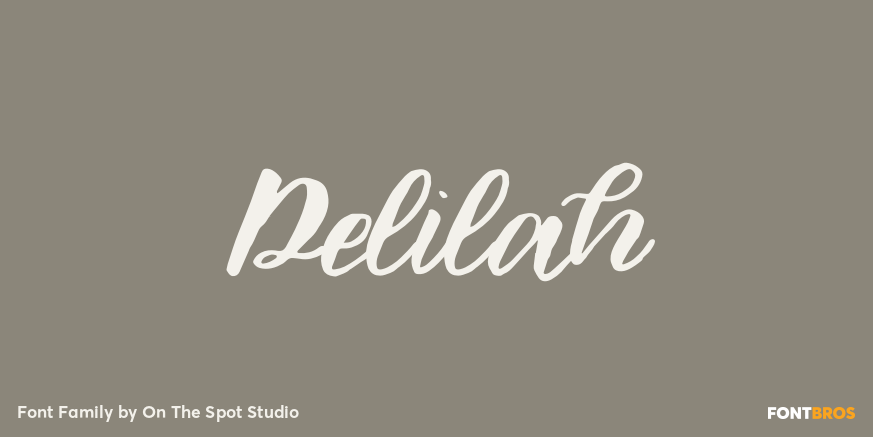
HomeFont BrosScripts: CasualDelilah Scripts: Casual Delilah FacebookXPinterestWhatsApp 1 of 1 About Delilah is a hand lettered brush font with bonus alternates. Great for branding, journaling, scrapbooking, etc.  DOWNLOAD ON FONT BROSThis font is sold and delivered by Font Bros. Font Canyon may earn a commission if you buy through this link. People also explored Malova Font Arskate Font De Alubarma Font Mudblood Font Diary Mithagitta Font Malshin Bilgisthi Electric Kiss Font Birdland Font Skull Grim Font 267 0 TagsDelilahDelilah Font Previous articleBeer DipNext articleLove And Peace LEAVE A REPLY Cancel reply Comment: Please enter your comment! Name:* Please enter your name here Email:* You have entered an incorrect email address! Please enter your email address here Website: Save my name, email, and website in this browser for the next time I comment. Personal Use Free Talking on Personal Use Free Read more about this font Lion Teen Personal Use Free Read more about this font Just Love Personal Use Free Read more about this font Soulties Personal Use Free Read more about this font BLOG Fonts That Capture the Spirit of New York City New York City is more than just a place—it’s an experience, a rhythm, a visual language... Top 10 Handwritten Fonts That Elevate Your Designs The 10 Best Handwriting Fonts to Add Personality to Your Designs Free vs Paid Fonts: Why Investing in Premium Fonts Is Worth It